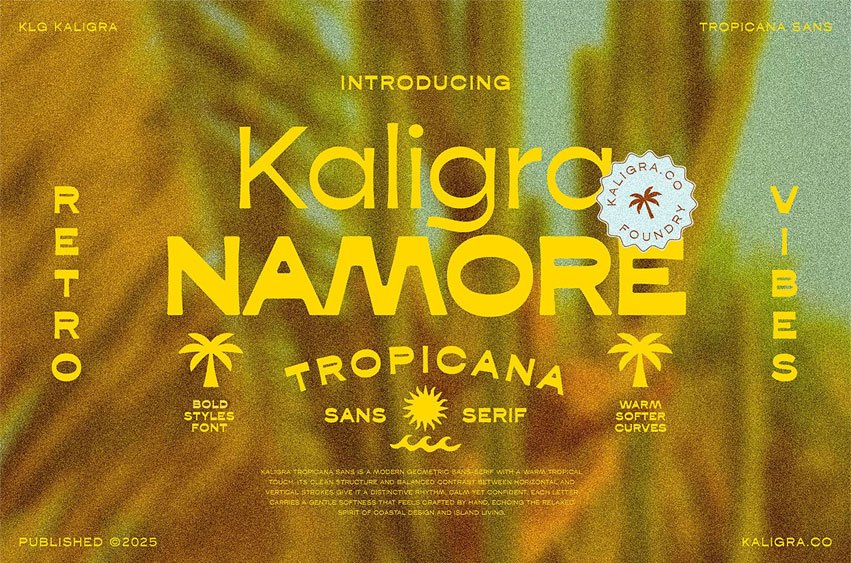
Kaligra Tropicana Font Sans is a modern geometric sans-serif with a warm tropical touch. Its clean structure and balanced contrast between horizontal and vertical strokes give it a distinctive rhythm, calm yet confident.
Each letter carries a gentle softness that feels crafted by hand, echoing the relaxed spirit of coastal design and island living. Kaligra shines in logos, travel editorials, fashion labels, websites, packaging, and lifestyle branding that seek modern simplicity with a hint of sun-soaked character.
- Geometric construction with balanced horizontal & vertical weight
- Warm curves and natural proportions for a relaxed tropical vibe
- Excellent legibility for headlines, branding, and UI design
- Uppercase & lowercase, numerals, punctuation, and multilingual support